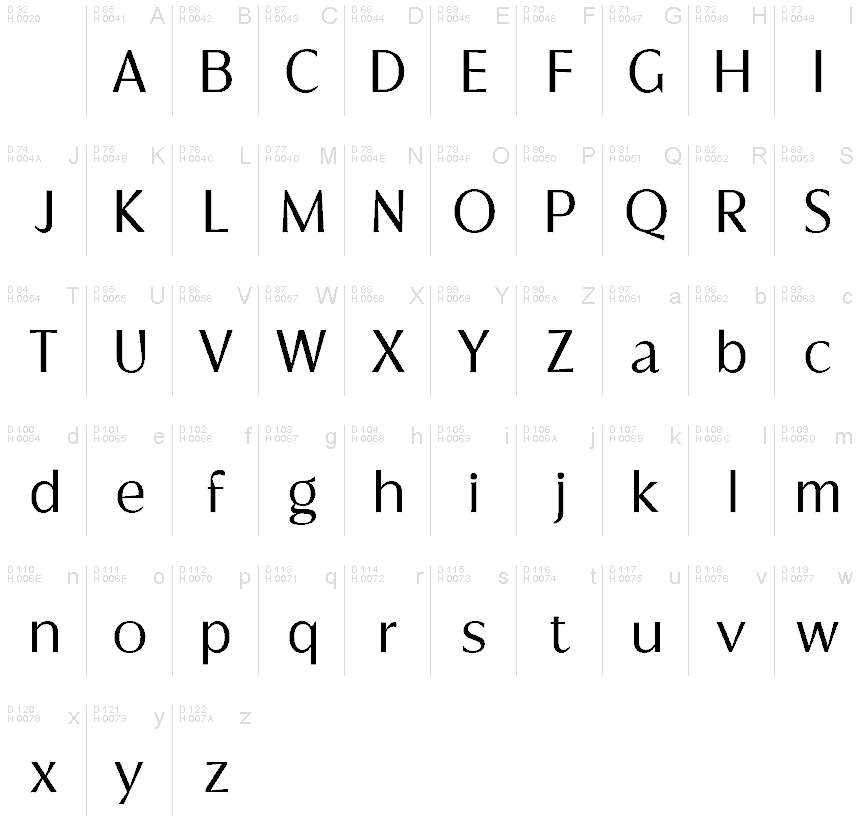
CS Action font by Craft Supply Co. is a free serif typeface with a sophisticated aura that honors traditions while still displaying a remarkable modern flair. Its elegant appearance extends in its beautiful serifs which make it ideal for professional designs and projects that require class and formality.
This classic, yet timeless font can elevate the authenticity of each book title, label design, magazine or newspaper headline as well as posters and flyers. It’s also an ideal choice for editors who want to sharpen their content whether it’s digital or printed or even branding performers who are building professional identities for clients such as lawyers or real estate agents among others.